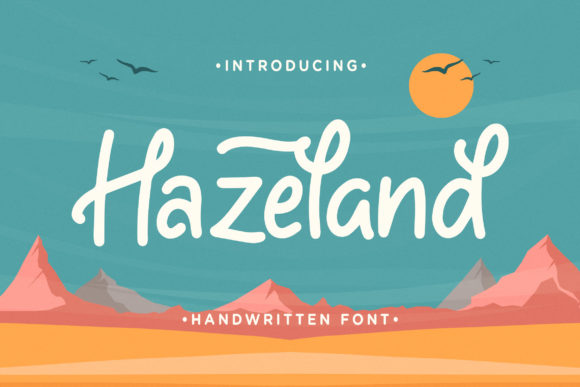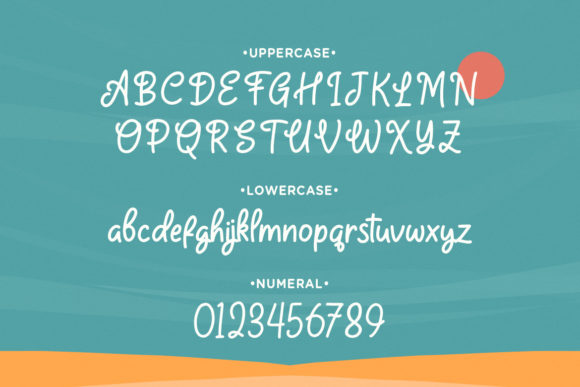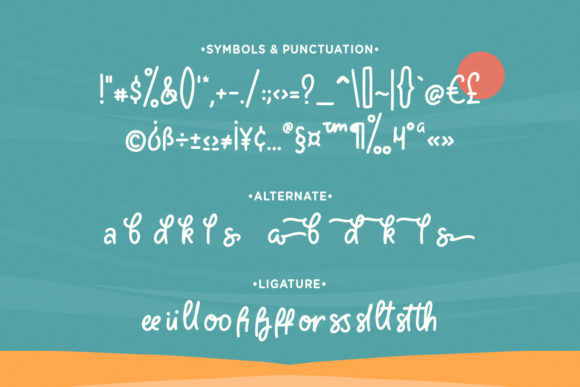
About Hazeland Font
Hazeland is a sweet and friendly handwritten font. Its natural and unique style makes it incredibly fitting to a large pool of designs. The only limit is your imagination!